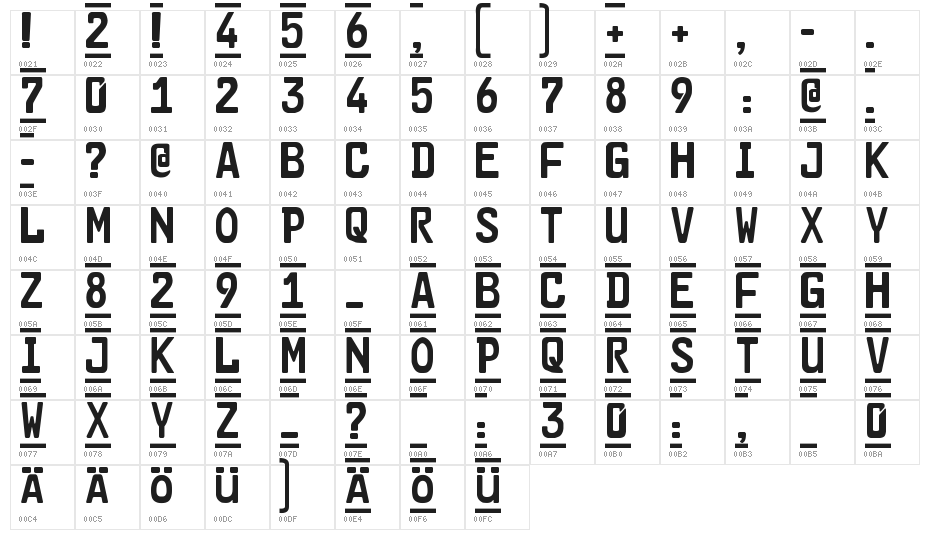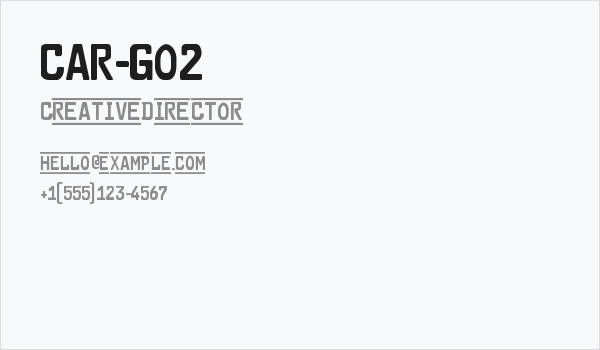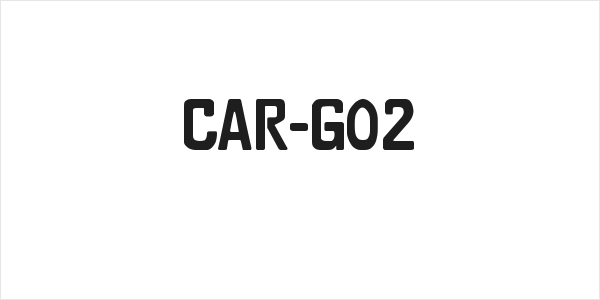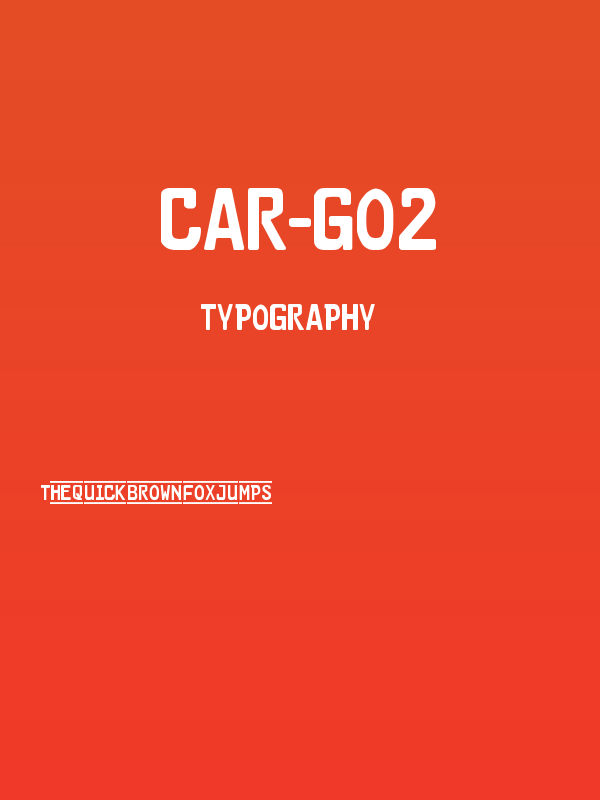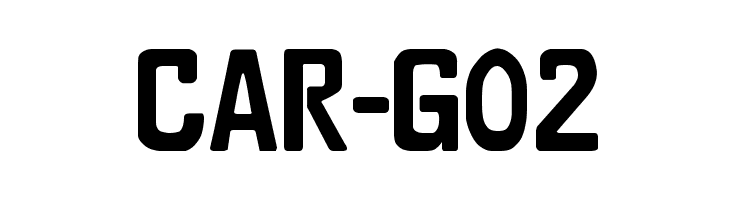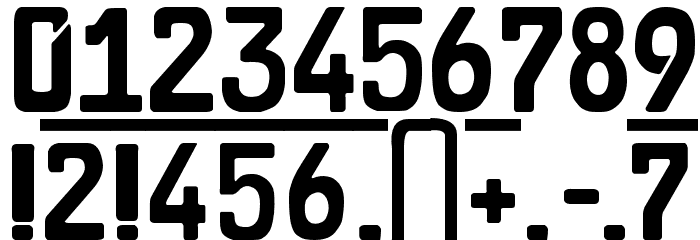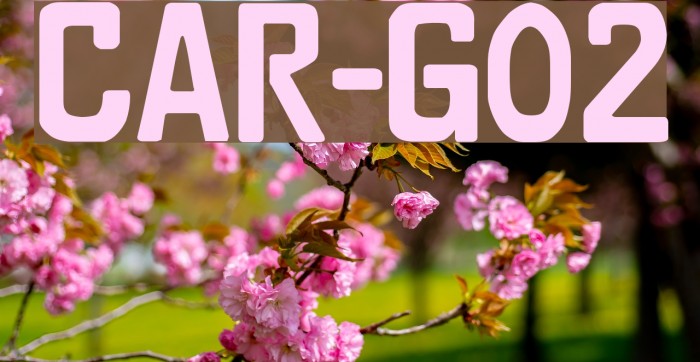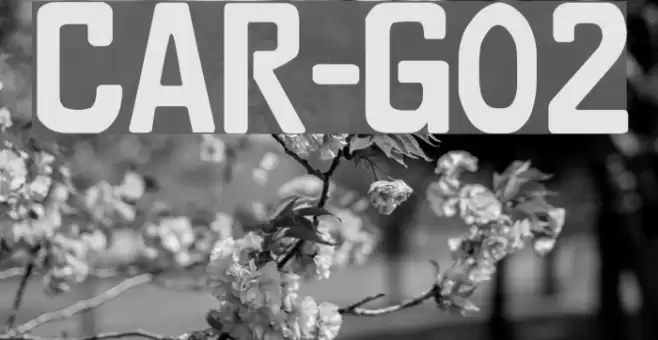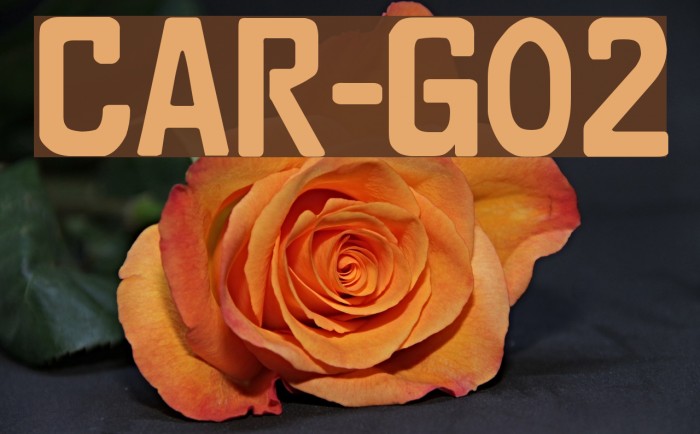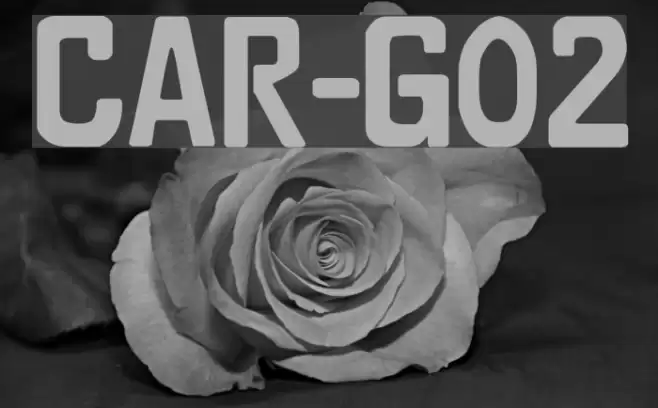
CAR-GO 2 Font
CAR-GO 2 Description
This font features a bold, geometric style with a strong presence. The uppercase letters are uniform in height and width, creating a cohesive and structured appearance. The characters have a slightly condensed form, with rounded edges that soften the overall look. The numbers are consistent with the alphabet, maintaining the same boldness and geometric design. Special characters are integrated seamlessly, ensuring versatility in various applications. The font's design is modern and clean, making it suitable for a wide range of uses where clarity and impact are essential.
| Width | Condensed |
| Use Case | Headlines, Logos, Signage |
| Proposed Projects | Ideal for branding, signage, posters, and any project requiring a strong visual impact. |